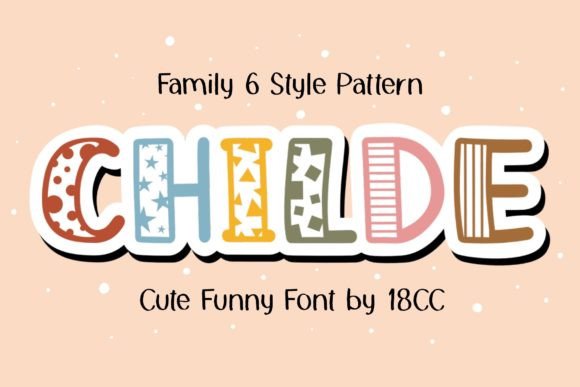
Introducing Childe Font: The Ultimate Cute Decorative Font for Your Creative Projects
In the world of typography, fonts play a crucial role in conveying messages, expressing emotions, and creating visual identities. When it comes to adding a touch of cuteness and fun to your designs, a decorative font can make all the difference. This is where Childe Font comes in – a delightful, versatile, and highly customizable font that is perfect for a wide range of creative projects. In this article, we’ll dive into the world of Childe Font, exploring its features, benefits, and uses, as well as provide tips on how to make the most of this amazing font.
What is Childe Font?
Childe Font is a cute decorative font that comes in six unique styles, each featuring a distinct set of elements, including polka dots, stars, rectangles, squares, horizontal, and vertical patterns. What makes Childe Font truly special is its bold font combined with different elements, resulting in new fonts that are not only cute but also fun and engaging. This font is designed to add a playful touch to your designs, making it perfect for a variety of applications, from logos and branding to social media graphics and crafty DIY projects.
The Six Styles of Childe Font
- Polka Dots: Add a playful and whimsical touch to your designs with the polka dot style.
- Stars: Bring a touch of magic and wonder to your designs with the starry style.
- Rectangles: Create a modern and edgy look with the rectangular style.
- Squares: Add a bold and geometric touch to your designs with the square style.
- Horizontal: Create a sense of movement and energy with the horizontal style.
- Vertical: Add a touch of elegance and sophistication with the vertical style.
Benefits of Using Childe Font
- Cute and Fun: Childe Font adds a playful touch to your designs, making them more engaging and fun.
- Versatile: With six unique styles to choose from, you can use Childe Font for a wide range of projects, from logos and branding to social media graphics and crafty DIY projects.
- Customizable: Combine different elements to create new fonts that are tailored to your specific needs.
Uses of Childe Font
Logo Design
Childe Font is perfect for creating cute and memorable logos for your business or brand.
Branding
Use Childe Font to create a consistent visual identity across all your branding materials, from business cards to letterheads.
Social Media Graphics
Add a touch of fun and personality to your social media graphics, from Facebook posts to Instagram stories.
Crafty DIY Projects
Childe Font is perfect for crafty DIY projects, such as making stickers, washi tape, or other paper crafts.
Tips for Using Childe Font
- Experiment with Different Styles: Try out different styles and combinations to find the one that works best for your project.
- Use it with Other Fonts: Combine Childe Font with other fonts to create a unique and interesting look.
- Play with Colors: Experiment with different colors and patterns to add an extra layer of fun and personality to your designs.
In conclusion, Childe Font is a versatile, cute, and fun decorative font that is perfect for a wide range of creative projects. With its six unique styles, customizable elements, and ease of use, Childe Font is a must-have for designers, crafters, and DIY enthusiasts. Whether you’re looking to create a logo, branding materials, social media graphics, or crafty DIY projects, Childe Font is the perfect fit. So why wait? Download Childe Font today and start adding a touch of cuteness and fun to your designs!